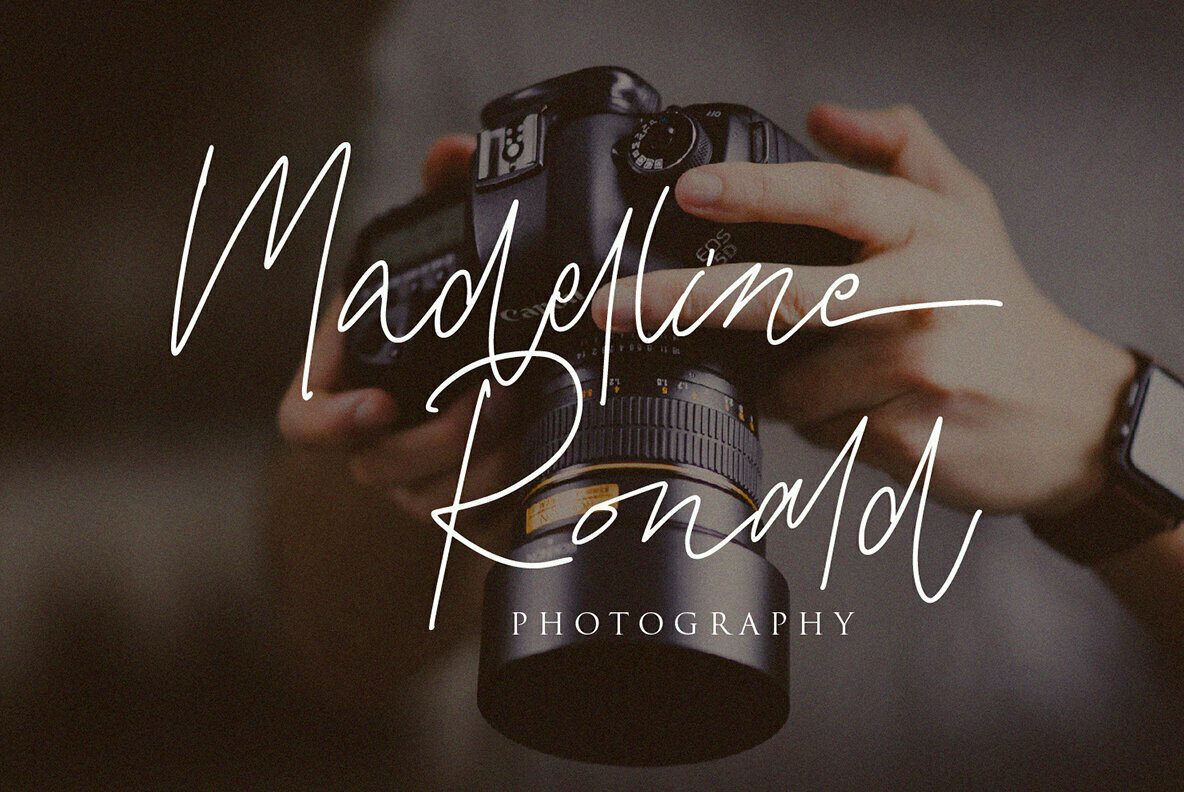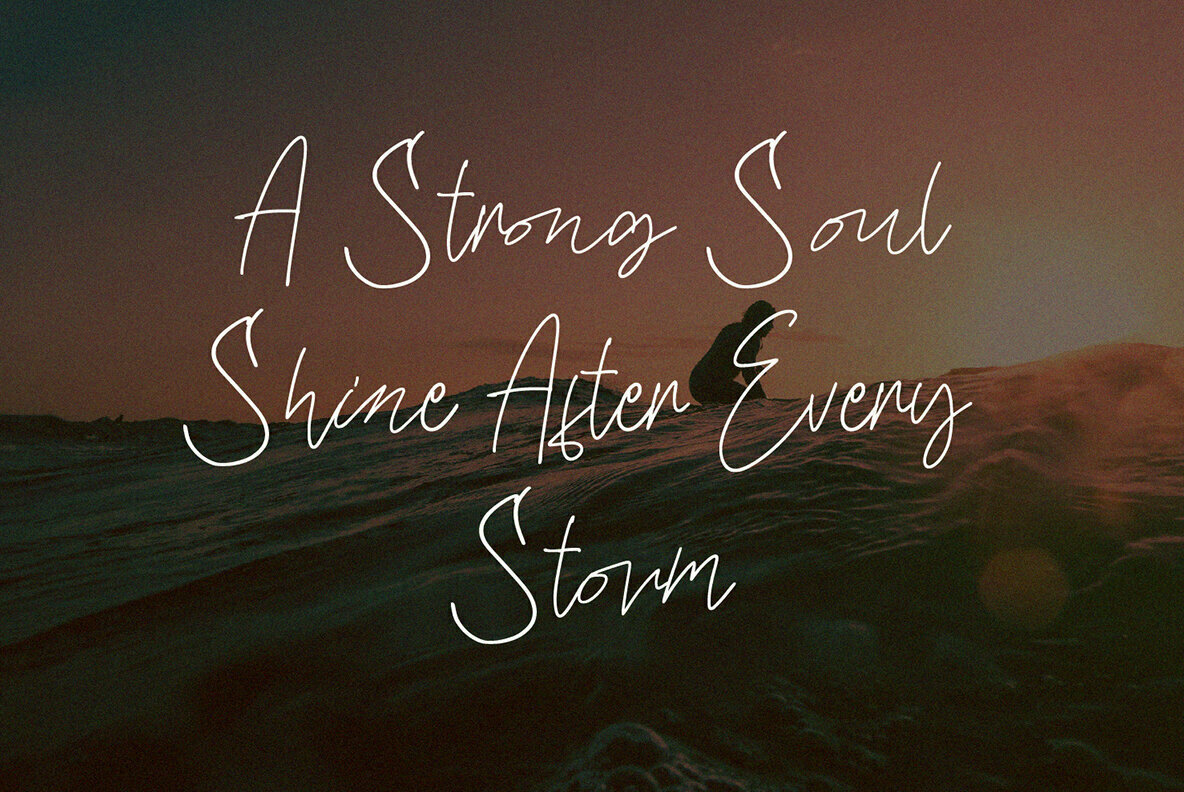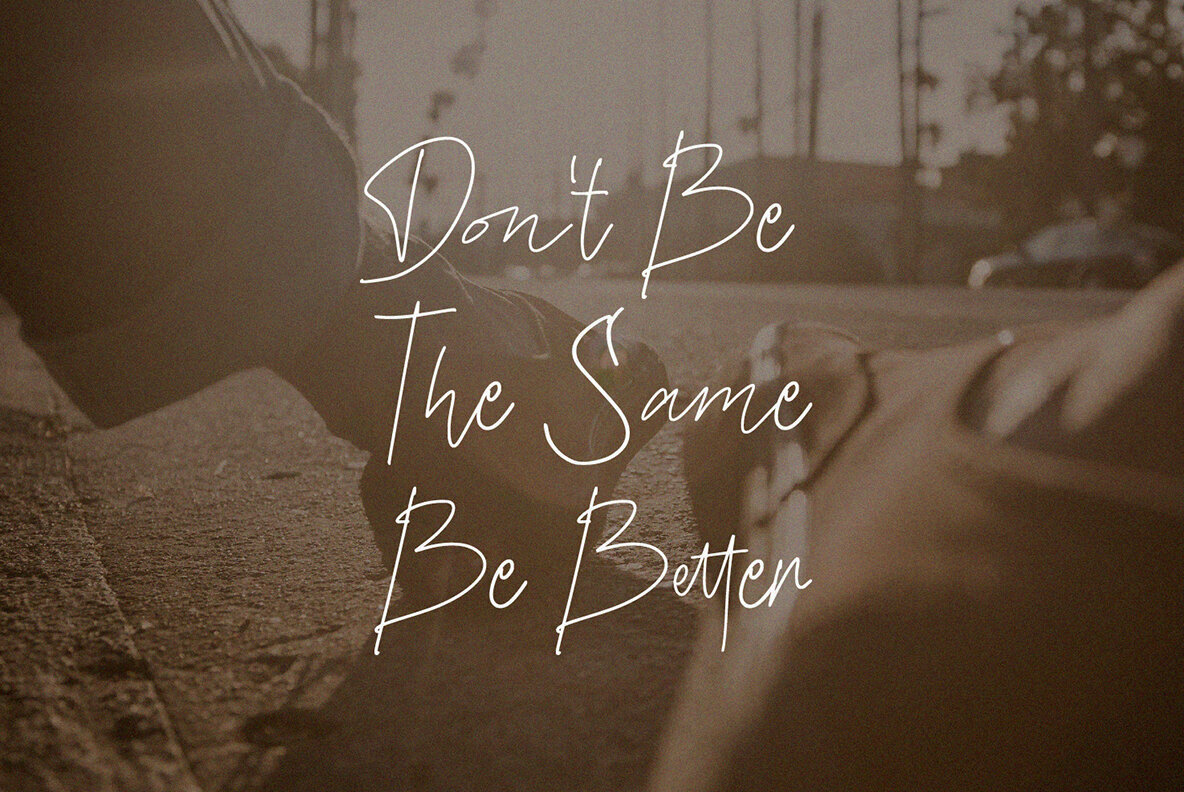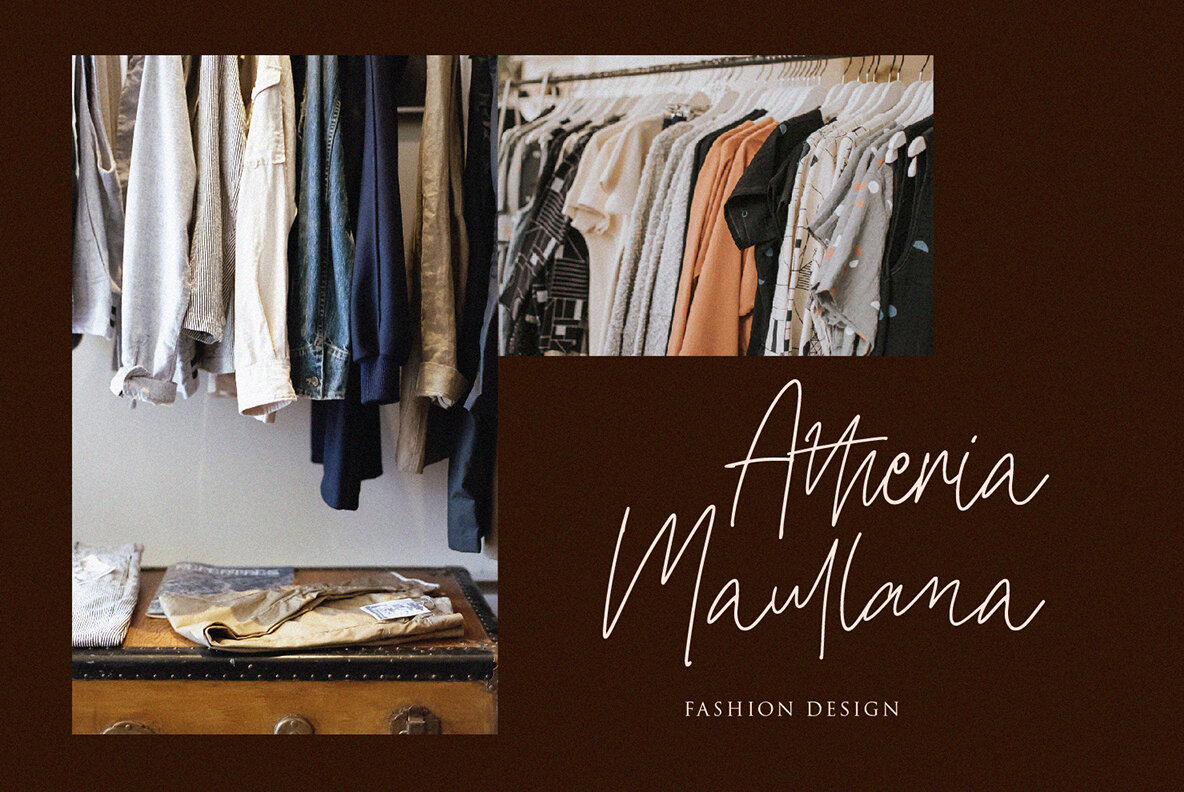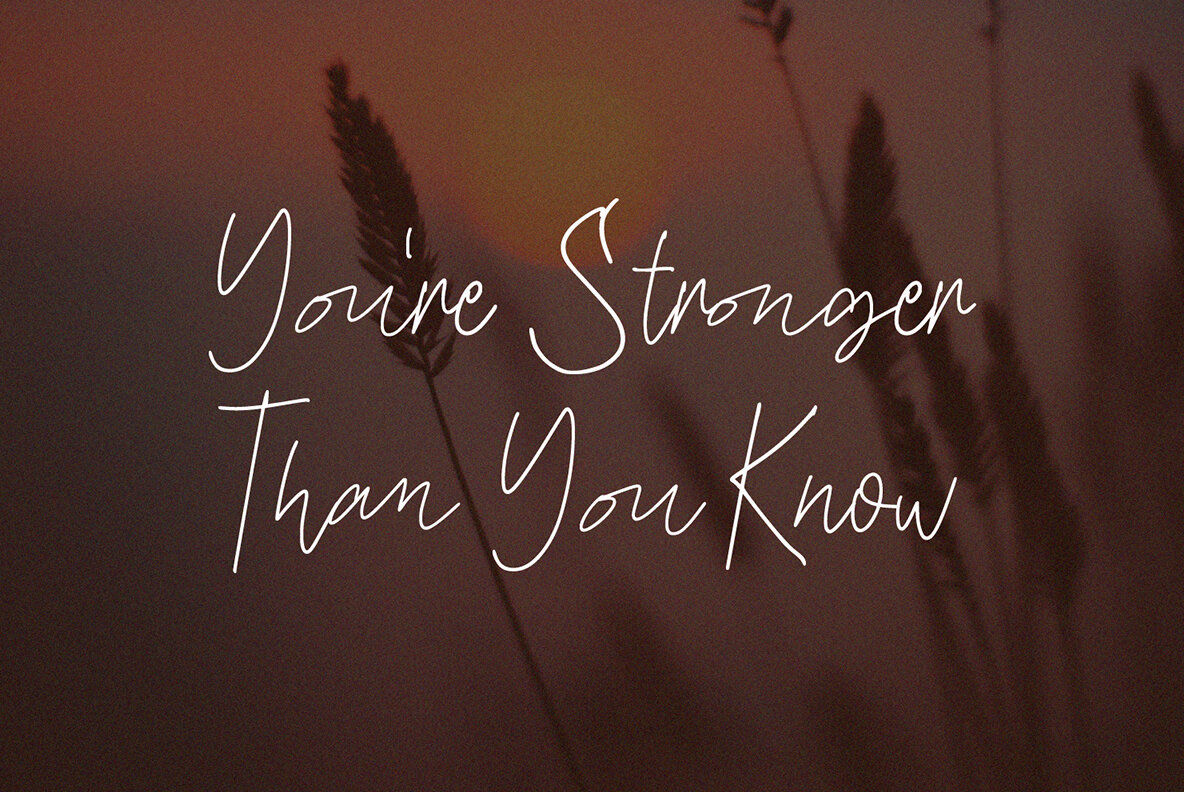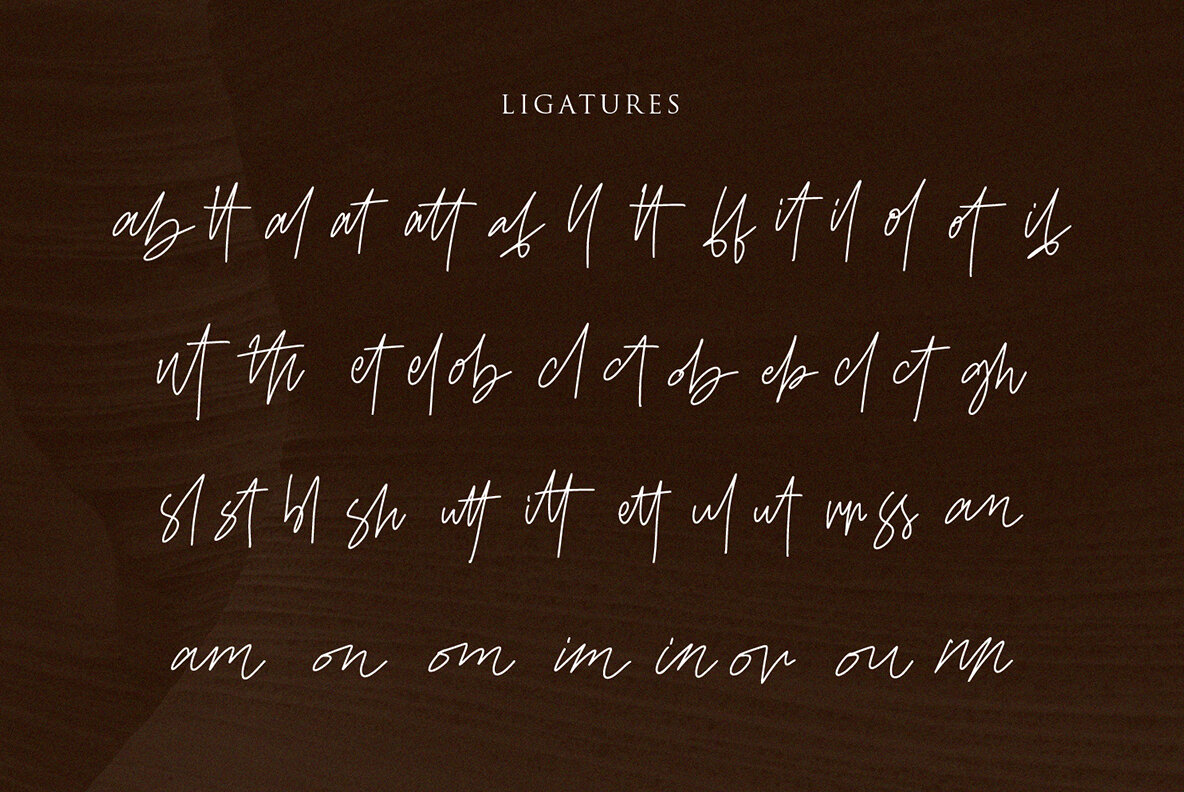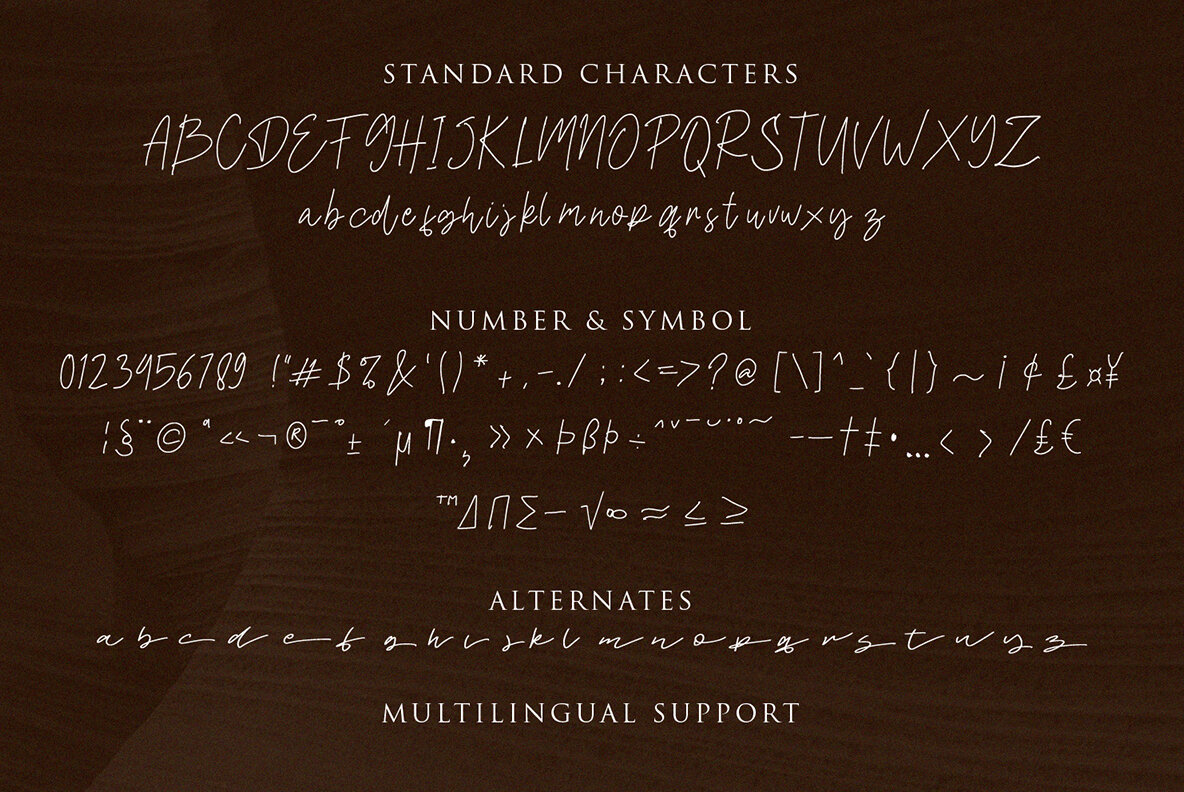
Daltana Font
Daltana
The Daltana font embodies a natural handwriting style that brings a personalized and artistic touch to a multitude of creative endeavors. Ideal for logos and branding, its expressive strokes have also found favor in invitations, stationery, and wedding designs, enhancing their elegance. Further extending its versatility, this typeface graces social media posts, advertisements, and product packaging, infusing them with a unique flair. Its adaptability doesn't end there. From uplifting quotes in fashion editorials to sophisticated labels and product designs, Daltana effortlessly accents photography and watermarks in special events, ensuring each project is infused with authenticity.Daltana: Handwriting Style With Versatile Application